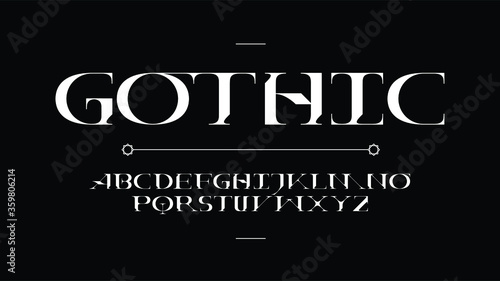
Elegant serif custom typeface with slim strokes and dep bracketing on the serifs. The font is built on a geometric grid, giving a strong stand and variety of use. Fashion, logos, letters, weddings.